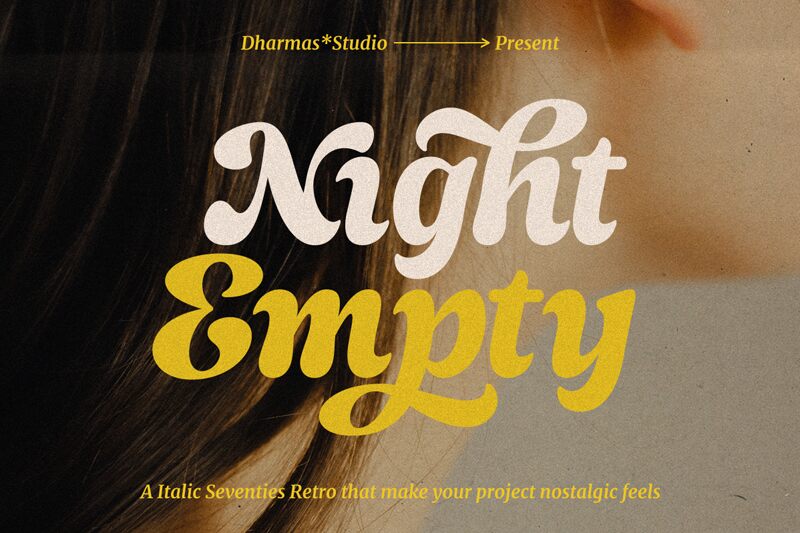
Night Empty DEMO
Night Empty font is a groovy display font by Dharmas Studio with bold, thick, expressive letters. Inspired by the 60s and 70s style, the retro typeface presents dramatic and ornate outlines that carry both classic and cheerful vibes. With a theatrical appeal and flair of decoration, it easily attracts readers’ attention that is either passing by or browsing leisurely.